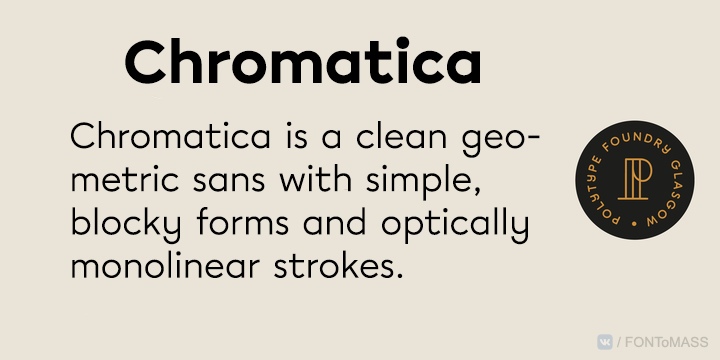
Chromatica Font
Chromatica Font is perfect for vibrant music festivals, colorful art exhibitions, rainbow pride campaigns, spectrum lighting designs, prismatic product packaging, kaleidoscope fashion brands, chromatic therapy materials, color psychology presentations, iridescent beauty products, and luminous creative projects.
What makes Chromatica Font so exciting is its spectacular embodiment of color theory and visual harmony that captures the infinite beauty and emotional power of the entire visible spectrum through dynamic typographic expression. This brilliantly crafted typeface features luminous letterforms with prismatic proportions and spectrum-inspired character variations that immediately convey vibrancy, creativity, and the transformative power of color in human perception and emotional experience. The font's chromatic construction and rainbow-inspired aesthetic create an instant sense of visual joy and creative freedom, making it ideal for projects that need to communicate artistic expression, emotional diversity, and the life-enhancing power of color to audiences seeking vibrant experiences and meaningful creative connections.
The Chromatica Font family typically includes multiple spectrum weights and colorful styles, often featuring light, regular, and bold variations along with prismatic italic versions. Color-themed font collections frequently offer additional chromatic elements such as rainbow symbols, spectrum ornaments, and color-wheel decorations that enhance the vibrant aesthetic and provide designers with comprehensive tools for creating visually stunning and emotionally engaging communications.
The vibrant nature of Chromatica Font makes it particularly effective for targeting demographics that value creativity, diversity, and visual impact in their personal and professional expressions. Creative marketers and artistic directors will find this font especially valuable for campaigns that must establish immediate visual excitement and connect with audiences seeking authentic creative experiences and meaningful artistic engagement.
What sets Chromatica Font apart is its ability to convey maximum visual impact while maintaining the harmony necessary for effective artistic communication. This balanced characteristic makes it suitable for both bold creative statements and subtle artistic applications where projecting creativity and maintaining visual coherence must work together seamlessly.
Professional designers recognize that Chromatica Font brings invaluable chromatic power to projects across industries including entertainment, fashion, arts education, and creative services. Its spectrum character and artistic appeal make it essential for organizations whose mission centers on celebrating creativity, promoting artistic expression, and creating visually inspiring experiences that enrich human life through the transformative power of color.
The systematically designed vibrancy of Chromatica Font ensures consistent chromatic impact across all color-focused communication applications while honoring the fundamental role of color in human perception and creative expression.